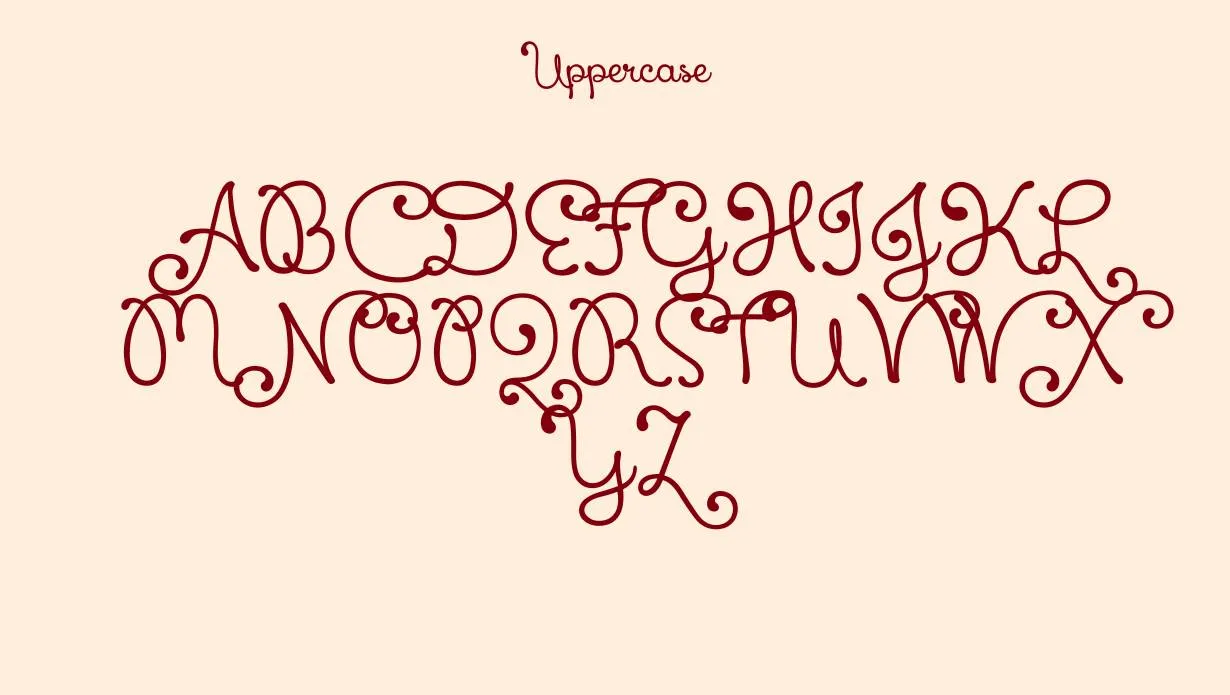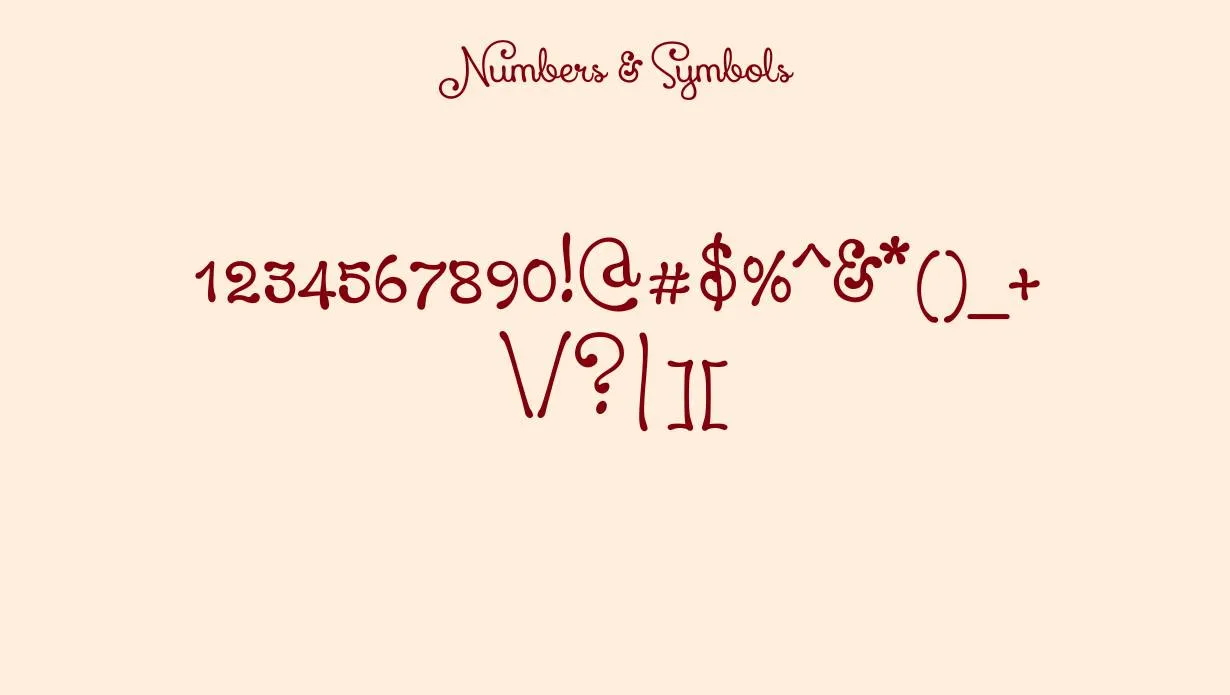
Xiomara font was designed by Lauren Thompson. It is a handwritten font with different amazing elements it contains 261 characters, 231 glyphs, and 2048 units per Em.
This amazing font has medium (normal) weight and its width is Semi-Expanded. Languages supported are Latin, Cyrillic, and Symbols. It supports the file format True Type Font and you can use it on various devices for use such as Windows, PC, and Mac.
| Name | Xiomara Font |
| Designer | Lauren Thompson |